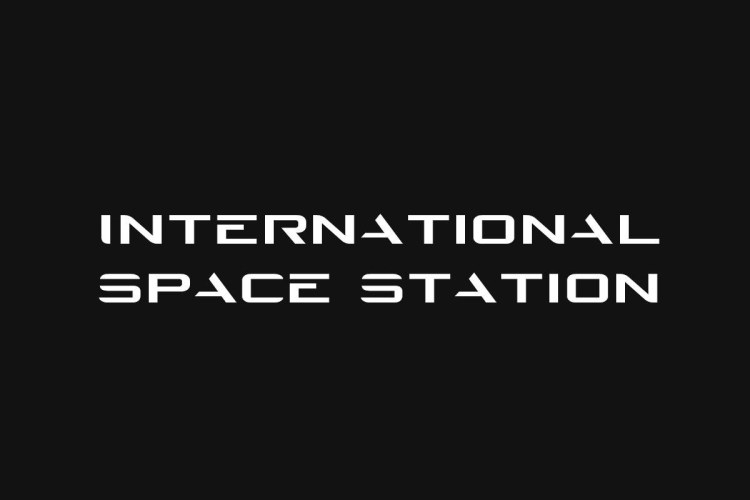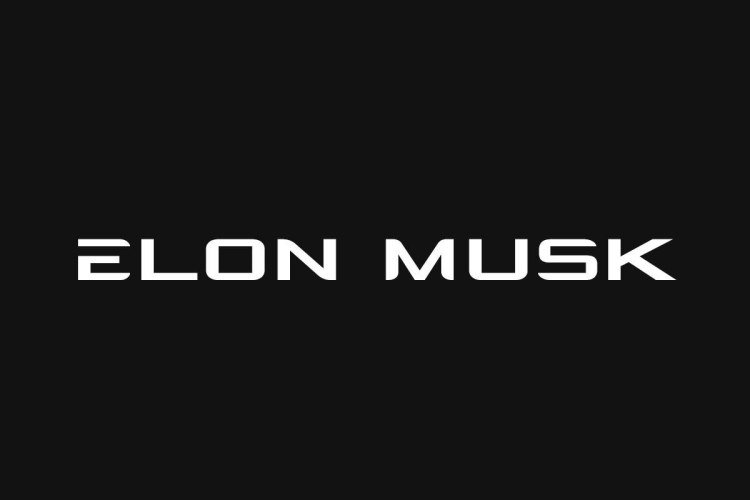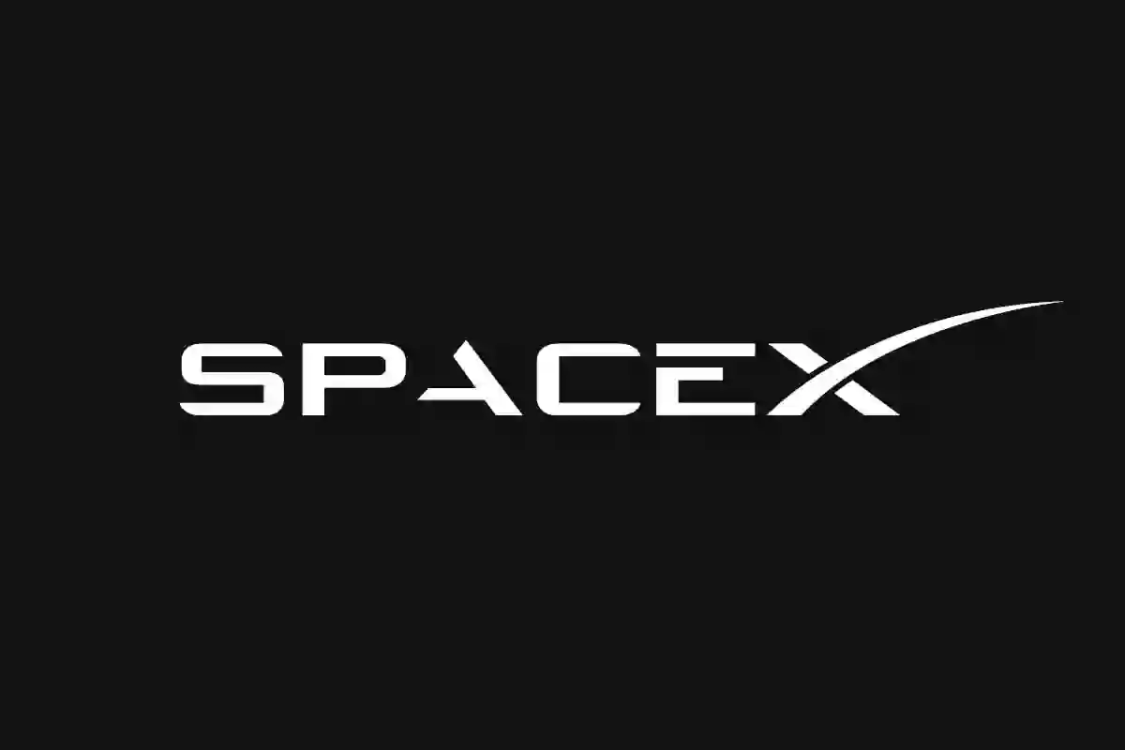
SpaceX Font
The SpaceX font, which many call “SpaceX typeface,” is an essential element of SpaceX’s visual identity (one of the first private companies dealing with aerospace and space transportation, founded by Elon Musk in 2002). The company uses the font for its branding in different materials such as logos, ships, branded stuff and digital media to reinforce its futuristic and innovative image.
The SpaceX font originated in the company’s early years when it created a characteristic visual identity aligned with its groundbreaking objectives of shaking space assumptions and perception. The font recently designed by SpaceX is a typeface unique to the company. It expresses the spirit of the firm’s renegade image, technological abilities, and desire to be the leader in space exploration.
The font designed by SpaceX has a minimalistic feel. It uses geometric forms and a futuristic style, encapsulating the SpaceX key offering, unique innovation, and top-notch technology. Straight lines, sharp angles and rounded edges characterize the font, which is aesthetically appealing and radiates a sense of accuracy and effectiveness.
SpaceX’s font stands out mainly due to the original letter “X”, which contains extended terminals or sometimes a crossbar that mirrors the rocket’s fins. This design moment symbolizes SpaceX’s commitment to space exploration and its endeavour to make space travel a more manageable and ecological choice.
SpaceX’s font is displayed abundantly in its logo, which consists of the word “SpaceX” in uppercase letters and the letter “X” designed to look like a rocket flight course. It usually pops up in the minds of space fans worldwide when someone mentions SpaceX, and ordinary people quickly associate it with the SpaceX brand when they see it.
Other than the logo, SpaceX font is used across different branding sources on mission patches, spacecraft names, launch vehicle markings, and marketing items. This application provides the company with a unified visual identity and helps strengthen its status as an aerospace leader, which the industry needs.
SpaceX font has not only proved to be important in space exploration. Still, it has also been visible in multimedia and design projects as a token of innovation and progress. Along with SpaceX, this signification of the Endeavour manifests space technology progress and human inventiveness.
By the end, the SpaceX font is a main character in creating visual identity and sending the message about SpaceX’s quest to transform the space exploration concept. It shines because of its sleek design and futuristic imagery, which capture the mind of the human and at the same time inspire a sense of exclamation, impressive only the vision of the human which the company has for the future of the human race in space.
Where SpaceX Font works best
SpaceX Font is built for size: event posters, hero headlines and billboard-style layouts.
High contrast display type like SpaceX Font reads instantly in thumbnails and motion graphics.
What is SpaceX Font good for?